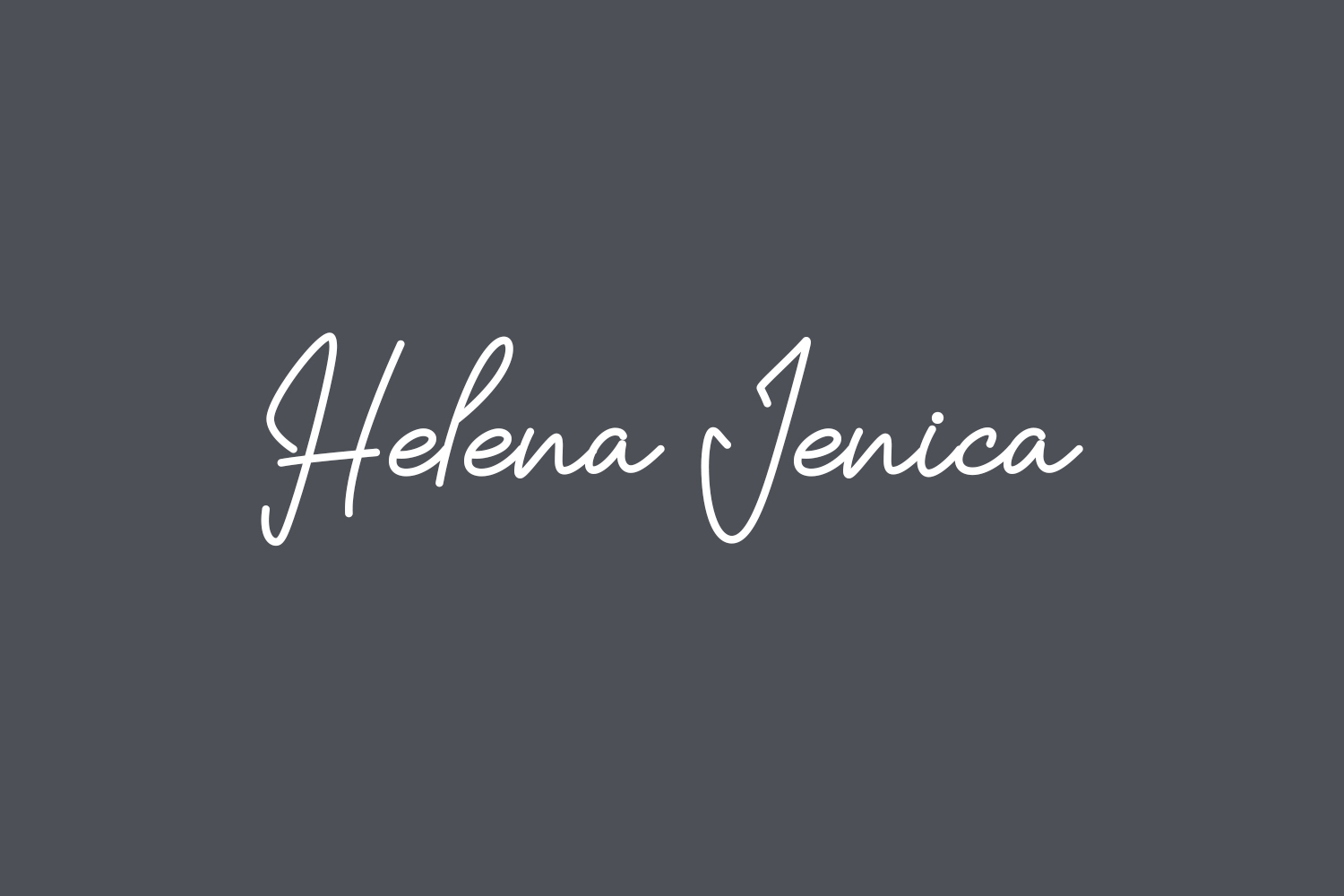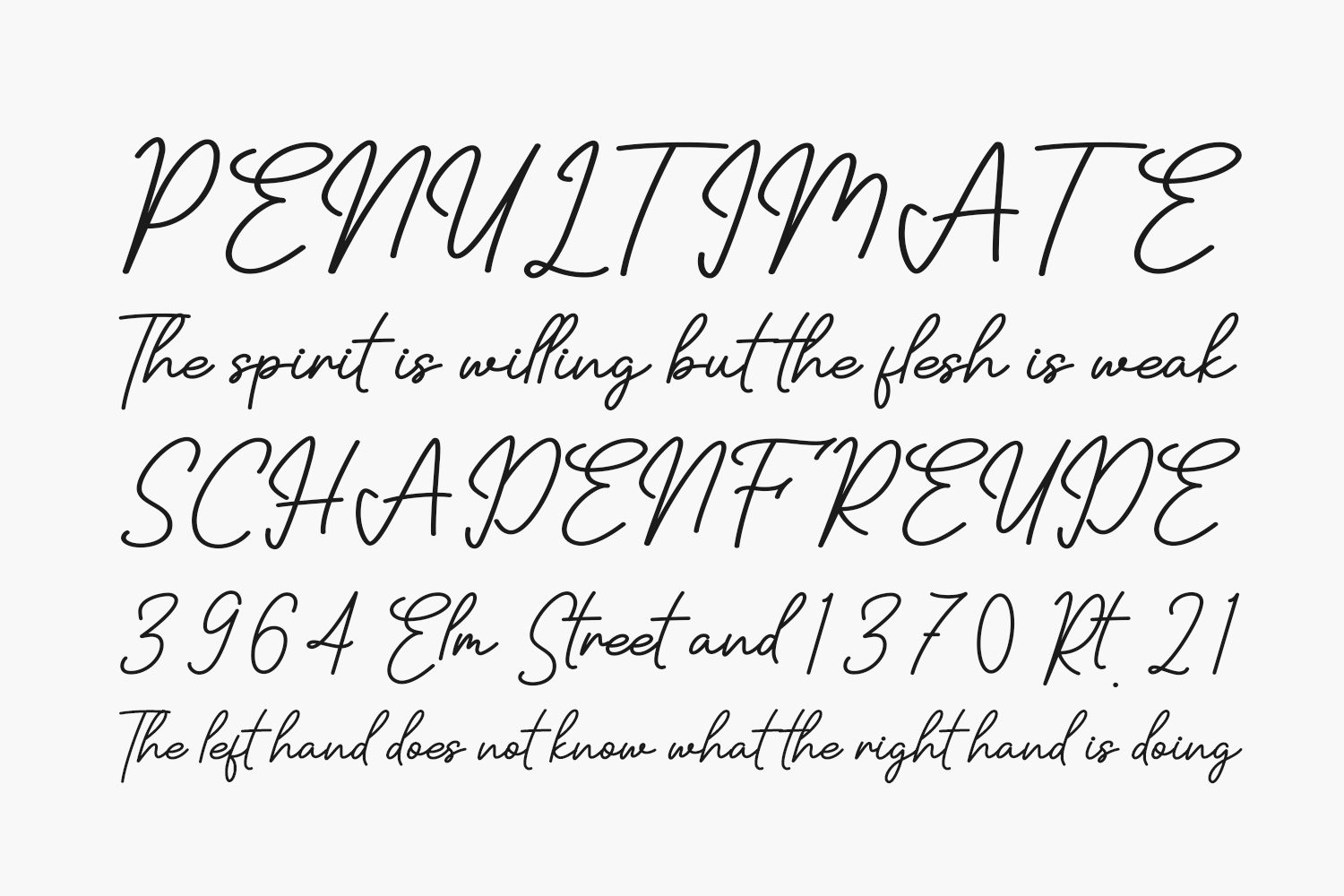
Helena Jenica Free Font embodies elegance with its handwritten charm. Delicate and filled with joy, this font is perfect for crafting wedding invitations, greeting cards, or any design seeking a romantic, personalized allure. Download the font for free if you need it for personal use or purchase the full version for commercial use.